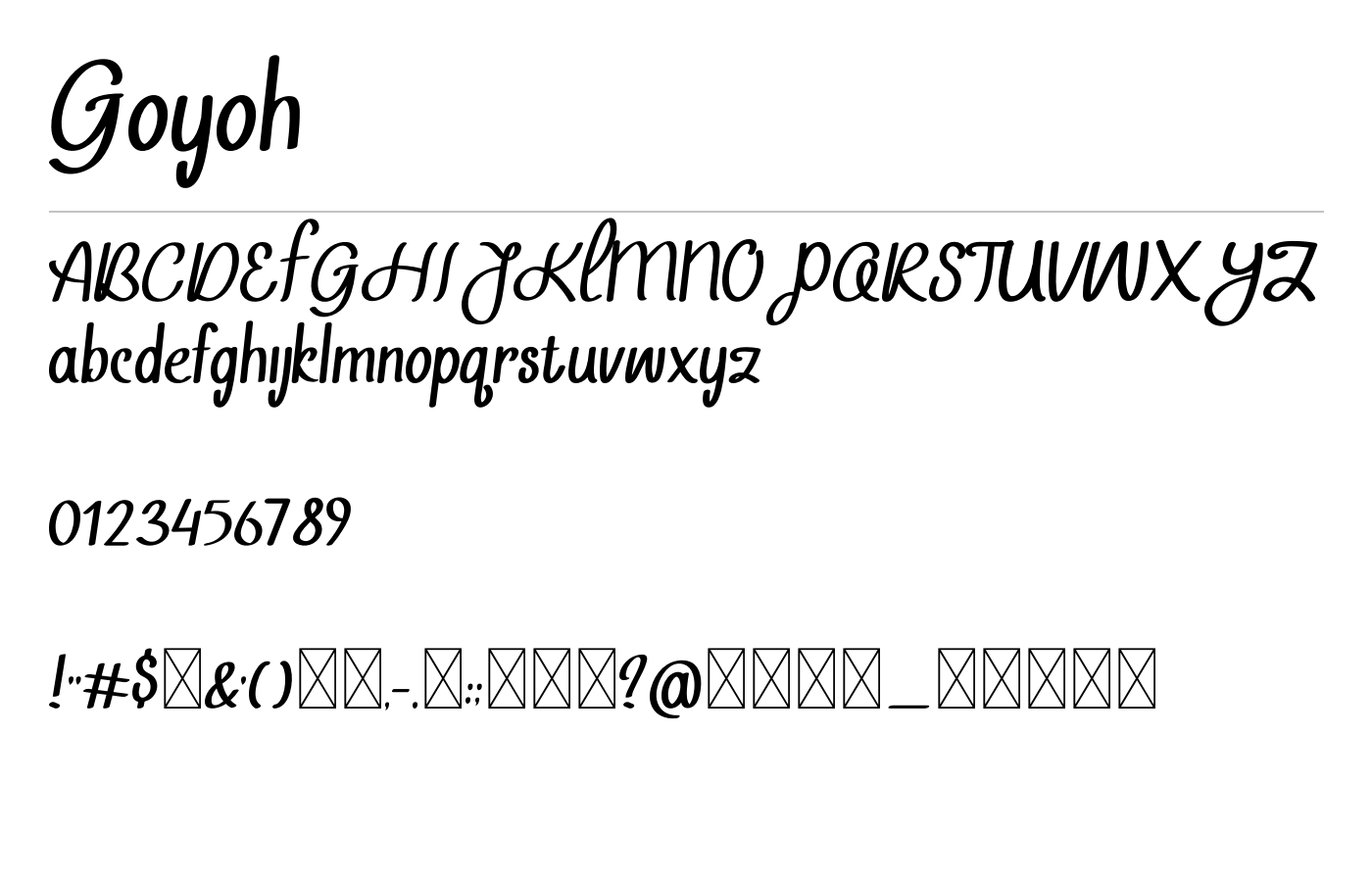
Goyoh is a lively script font with a casual, hand-drawn feel that combines a moderate contrast in stroke weight with slightly condensed letterforms. Its tall x-height and smooth, flowing curves give it an approachable yet elegant personality, making it ideal for eye-catching headlines, branding, invitations, or creative projects that want to balance charm and readability. This font works well where a friendly, artistic touch is desired without sacrificing clarity.
| Designer | Aidil Muladha |